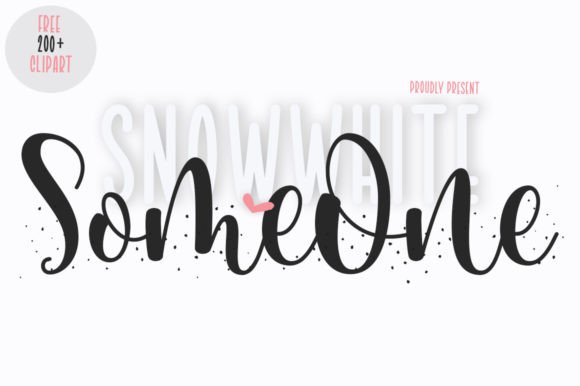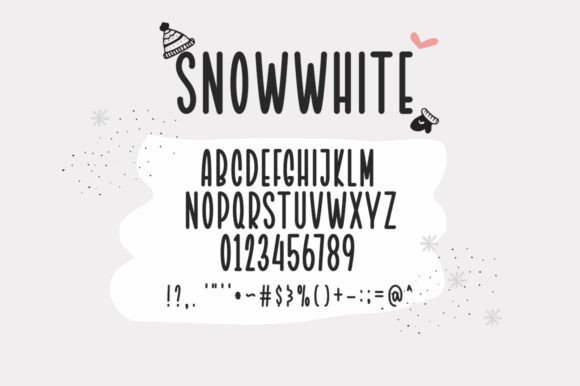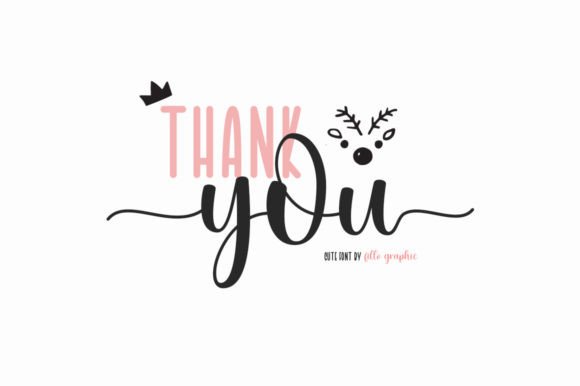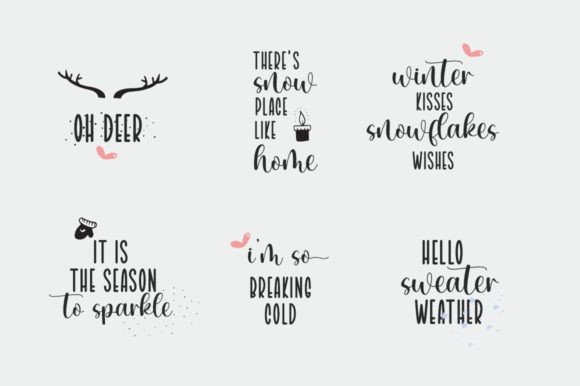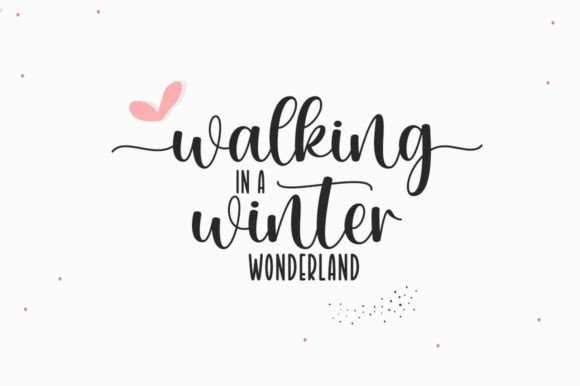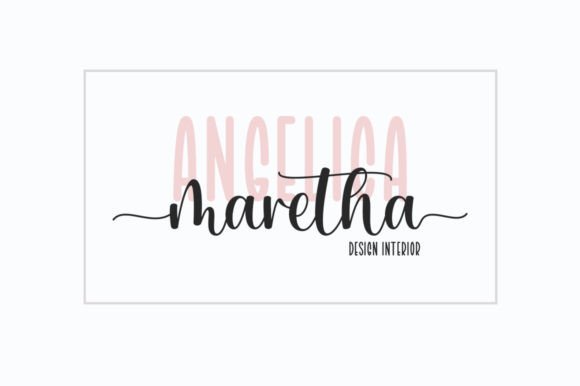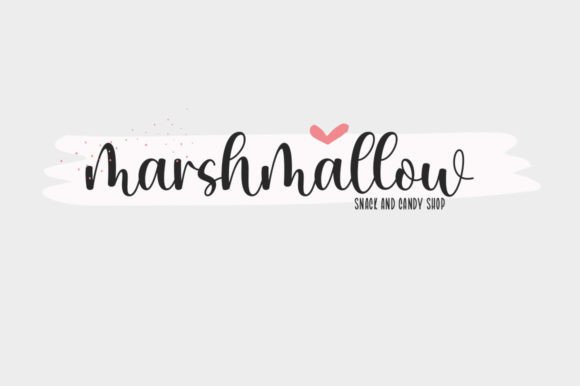
Someone Snowwhite Font
Someone Snowwhite Font Download – Versatile Script & Sans Duo
The Someone Snowwhite Font download is a versatile typeface duo that combines script elegance with sans serif simplicity. With this pairing, designers can achieve balance, harmony, and variety in their creative projects. Because it is PUA encoded, all glyphs and ligatures are easy to access, providing endless design flexibility.
Elegant Script and Clean Sans Serif Style
Someone Snowwhite offers two complementary styles—one flowing script and one minimal sans serif. As a result, it allows you to mix and match for contrast while maintaining visual balance. In addition, this duo adds a luxurious spark that suits both casual and formal projects.
From wedding invitations to stylish greeting cards, this duo font provides elegance and clarity. The script style brings romance, while the sans serif ensures readability. Therefore, it is a great option for stationery and event-related projects.
Someone Snowwhite Font Download for Logos and Posters
The Someone Snowwhite Font download also shines in logos, posters, and branding. The script delivers flair, while the sans serif anchors designs with professionalism. Together, they create a polished look perfect for modern brands.
Versatility Across Creative Projects
This duo font adapts effortlessly to magazines, packaging, social media graphics, and digital artwork. In addition, it is suitable for both print and digital formats, making it a valuable addition to your font library.
Readability and Balanced Design
Unlike some decorative scripts that can reduce legibility, Someone Snowwhite maintains clarity through its sans serif companion. As a result, it works well for headlines, product packaging, and marketing campaigns.
Why Add This Duo Typeface to Your Collection?
The Someone Snowwhite Font download is versatile, stylish, and easy to use. In other words, it suits invitations, posters, logos, branding, and creative projects alike. Finally, it is a duo font that adds luxury, creativity, and timeless style to every design.